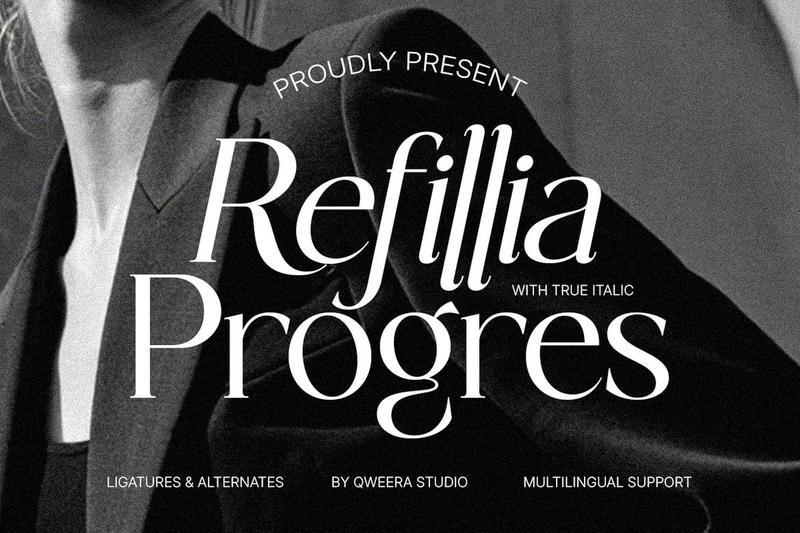
**Refillia Progress** is an elegant editorial serif typeface designed to bring sophistication, clarity, and luxury into modern creative projects. Featuring refined letterforms, stylish alternates, graceful ligatures, and true italic styling, this font creates a polished typographic presence for premium design work.
Perfect for luxury branding, fashion editorials, magazine layouts, beauty packaging, boutique identities, corporate logos, premium stationery, and upscale marketing materials.
Refillia Progress blends classic serif elegance with modern editorial confidence, making it an excellent choice for designers seeking refined typography with a professional high-end feel.
**Features**
– Uppercase & lowercase
– Alternates & ligatures
– Multilingual support
– Professional kerning
– Regular & True Italic
**Perfect For**
Luxury branding, fashion editorials, beauty packaging, magazine layouts, boutique logos, corporate branding, premium stationery